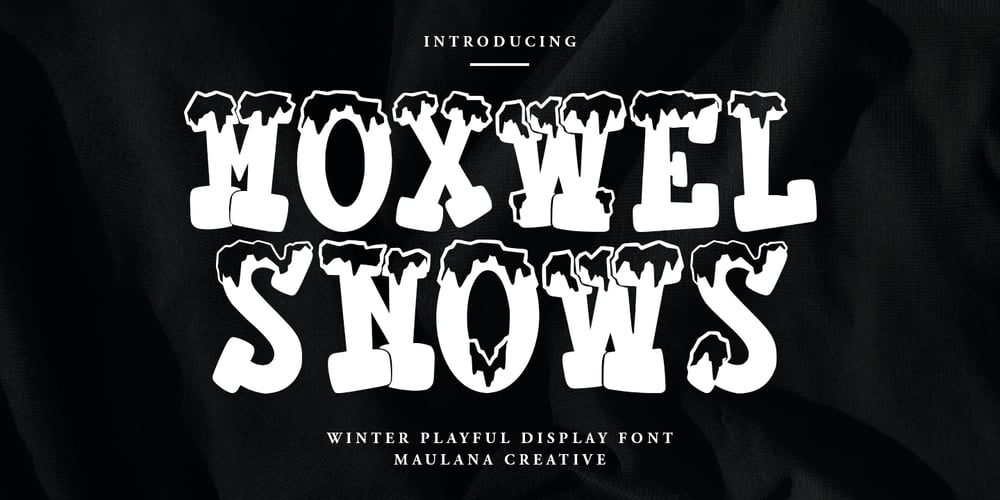
MC Moxwel Snows Font Family was designed by Gilang Maulana and published by Maulana Creative. MC Moxwel Snows contains 1 styles and family package options. Moxwel Snows winter playful display font. Bold stroke, fun character with a bit of ligatures and alternates. To give you an extra creative work. Moxwel Snows winter playful display font support multilingual more than 100+ language. This font is good for logo design, Social media, Movie Titles, Books Titles, a short text even a long text letter and good for your secondary text font with script or serif. Make a stunning work with Moxwel Snows winter playful display font.Cheers,Maulana Creative